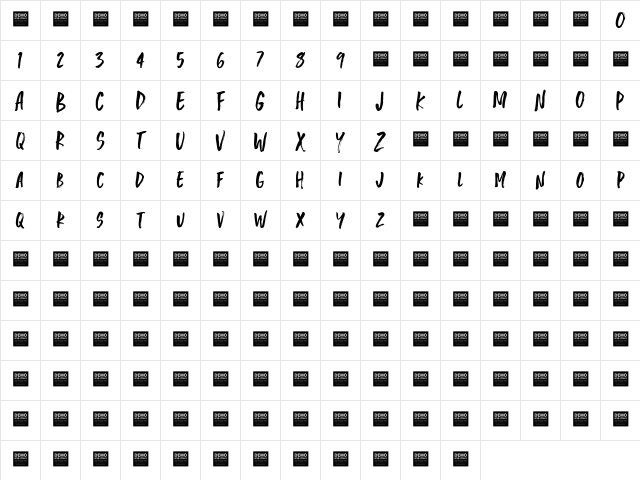
Complete Jungle Jam - Demo Regular glyph index. Displaying only characters natively supported by Jungle Jam - Demo Regular font.
Jungle Jam - Demo is a composed and adaptable typeface that performs quietly and consistently across a wide range of design contexts.